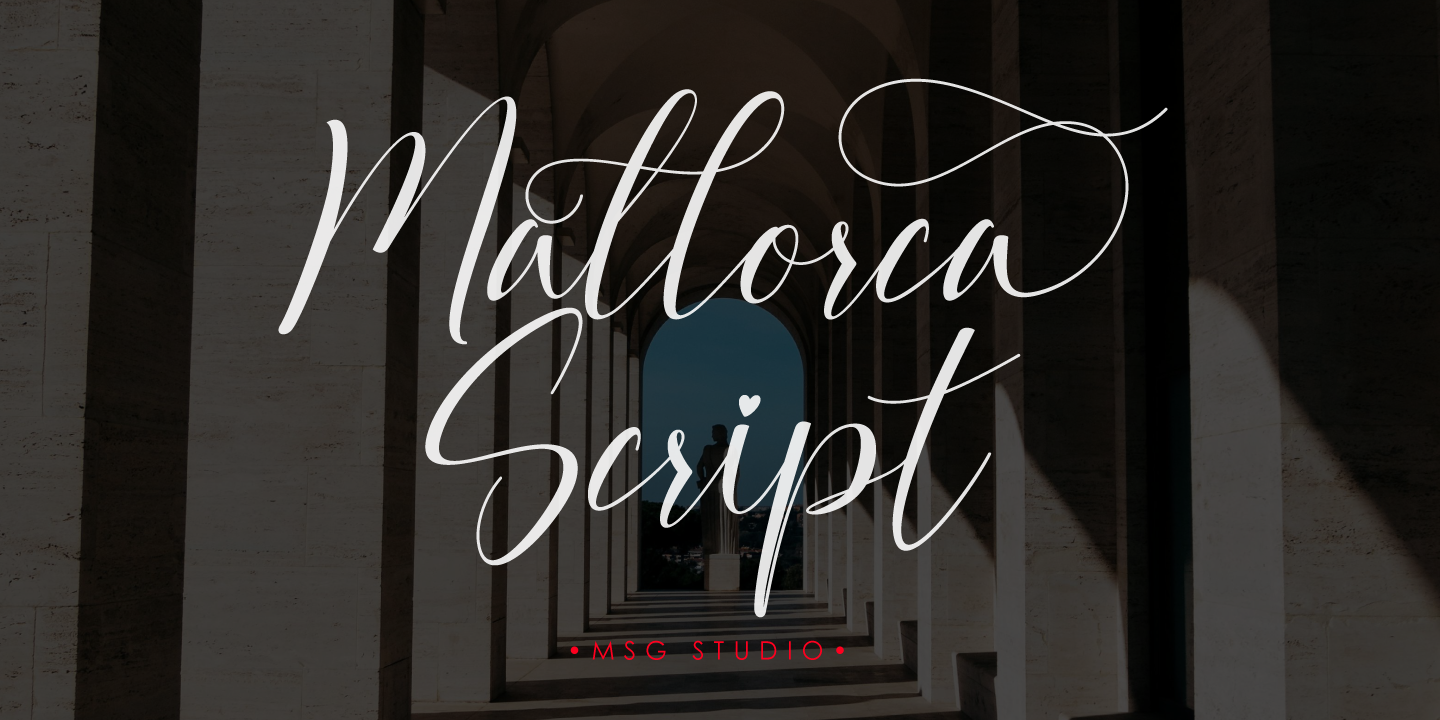
Mallorca Script Font is ideal for Mediterranean restaurant branding, luxury resort marketing, elegant wedding invitations, tropical vacation promotions, coastal boutique signage, Spanish-inspired cookbook covers, wine label designs, romantic greeting cards, upscale travel brochures, and sophisticated projects that celebrate the enchanting beauty and relaxed elegance of Mediterranean coastal living.
What makes Mallorca Script Font so exciting is its exquisite capture of Mediterranean charm through flowing script letterforms that evoke the romantic elegance of Spanish coastal culture. This typeface embodies the sophisticated relaxation of island life, featuring graceful curves and elegant flourishes that suggest handwritten letters from seaside villas while maintaining excellent readability and contemporary appeal for modern luxury applications.
Mallorca Script Font family encompasses multiple elegant variations: Regular, Bold, Light, Italic, Ornate, Casual, Formal, and Decorative versions. Each style maintains the font's inherent Mediterranean sophistication while offering different levels of formality and decorative detail, enabling designers to create authentic coastal luxury aesthetics that transport audiences to sun-soaked Spanish islands.
The romantic appeal of Mallorca Script Font Free Download makes it exceptionally valuable for luxury hospitality and lifestyle brands. This font successfully communicates sophistication and relaxed elegance, making it perfect for businesses that want to evoke the timeless charm of Mediterranean living and Spanish coastal culture. Its versatile character works beautifully across both digital platforms and high-quality print materials, while its distinctive script style creates immediate emotional connection with audiences seeking escape, romance, and sophisticated leisure experiences.